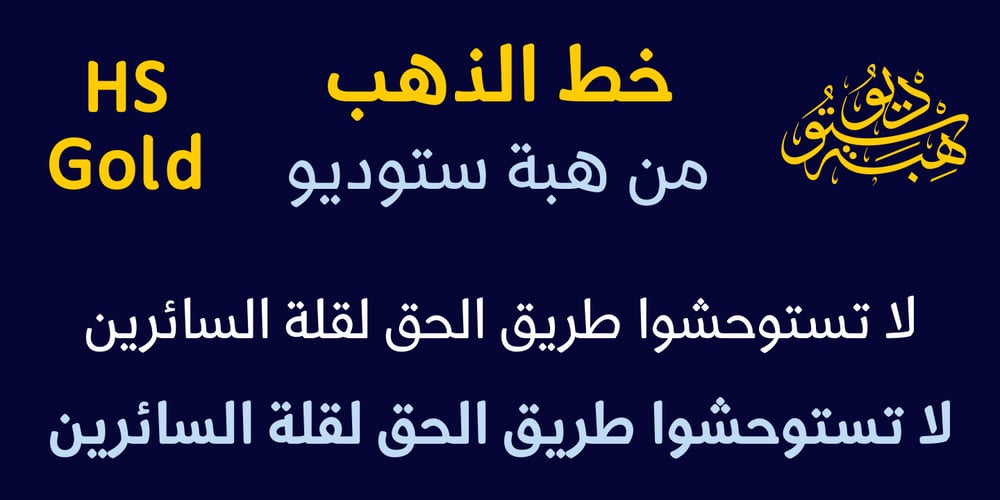
HS Gold Font Family was designed by Hasan Abu Afash and published by Hiba Studio. HS Gold contains 2 styles and family package options. HS Gold is based on some modern lines of Naskh calligraphy which supports Arabic, Persian and Latin with a Sans Serif with subtle round on stems and corners. The typeface has been optimized for corporate identity work, editorial design and modern projects when a contemporary and simple look with a similarity between Arabic and Latin is requested. It features swash, ligatures and swash ligatures. Its proportions allow high impact on the tightly set lines of big and small text alike. This font consists of two weights (regular and bold) which can constitute a striking addition to the library of Arabic and Latin contemporary fonts models that meet the purposes of various designs for all tastes and projects.